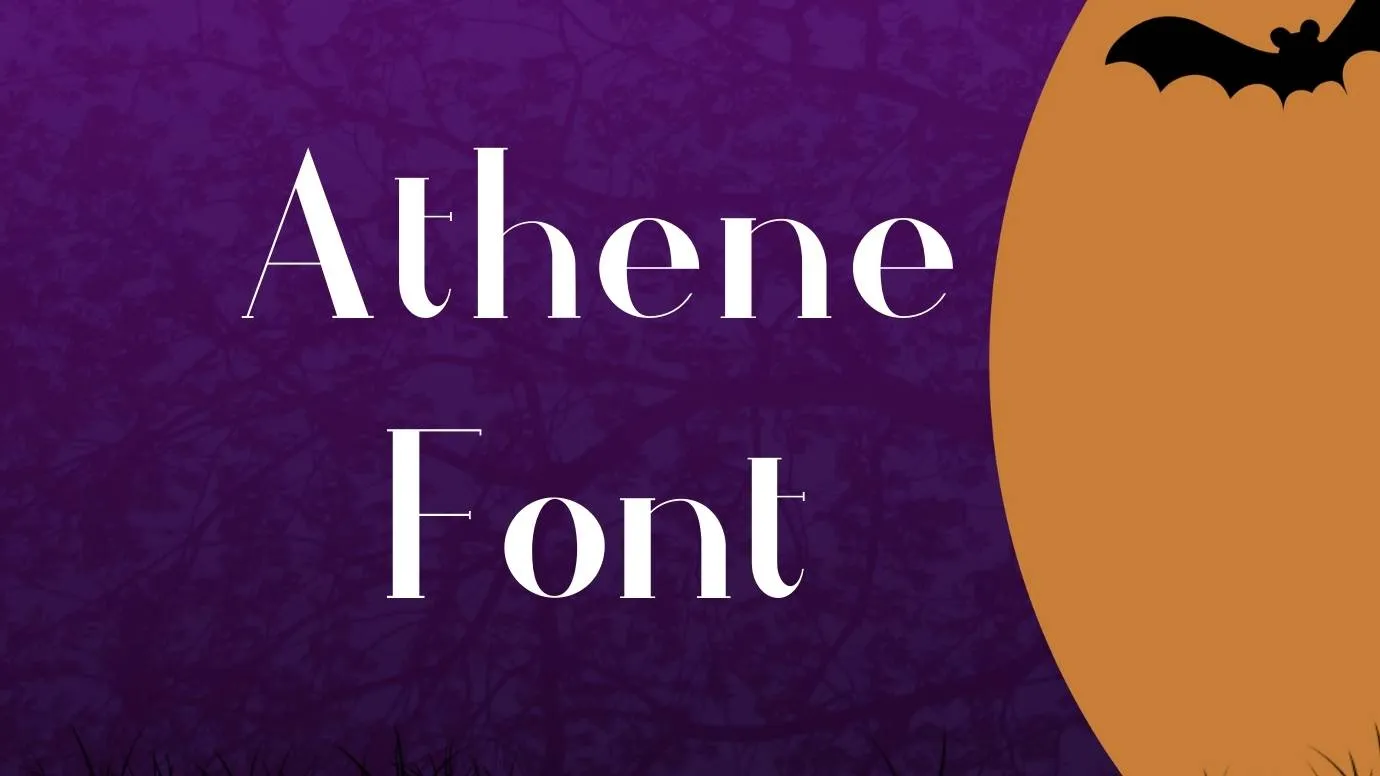
Athene Font Family is a serif typeface crafted by the Canadian wizard of fonts, Matt Ellis. This typeface comes in 157 characters including uppercase letters, punctuations, symbols, and some special characters. Its bold characters are perfect for making new and astonishing designs.
TypeSerif
DesignerMatt Ellis